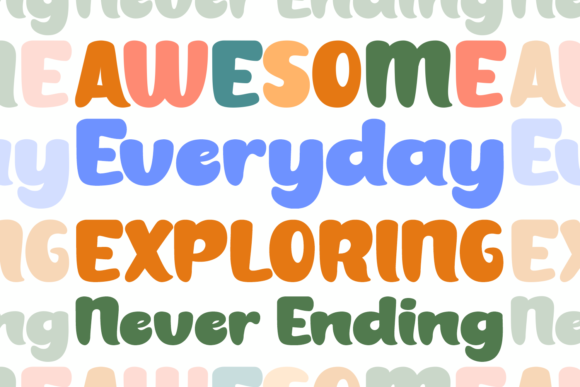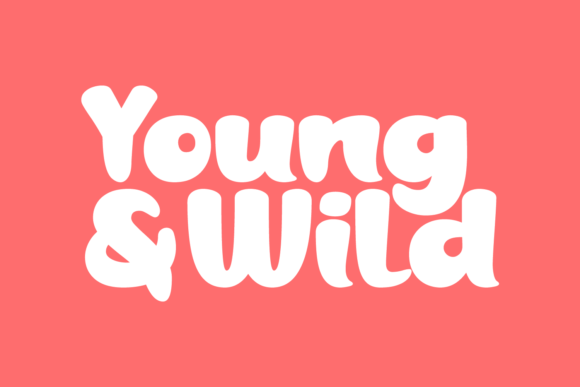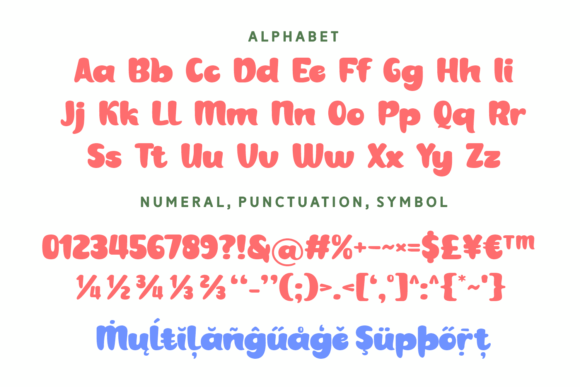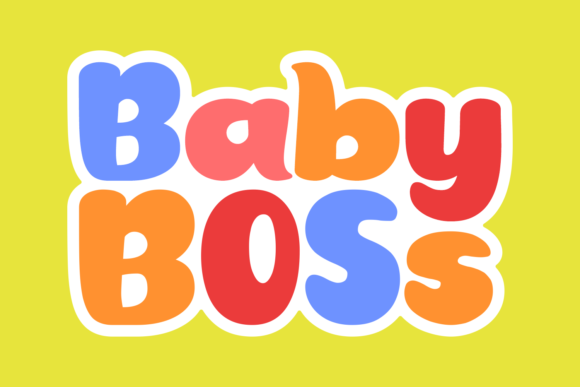
Baby Boss Font: Elevate Your Designs with a Bold and Bubbly Display Font
Are you looking for a font that can add a touch of playfulness and fun to your designs? Look no further than the Baby Boss Font! This bold and bubbly display font is perfect for designers and crafters who want to take their projects to the next level. In this article, we’ll explore the features and benefits of the Baby Boss Font, and how it can be used to create stunning designs that will leave a lasting impression.
What is Baby Boss Font?
Baby Boss Font is a modern display font that features lively characters that are sure to capture attention. The font is designed to be bold and bubbly, making it perfect for projects that require a playful touch. Whether you’re creating a logo, a poster, or a social media graphic, the Baby Boss Font is sure to add a fun and energetic vibe to your design.
Key Features of Baby Boss Font
- Bold and Bubbly: The Baby Boss Font features bold and bubbly characters that are sure to stand out in any design.
- Easy to Read: Despite its bold and playful design, the Baby Boss Font is easy to read, making it perfect for use in a variety of projects.
- Versatile: The font can be used in a variety of projects, from logos and posters to social media graphics and more.
Benefits of Using Baby Boss Font
There are many benefits to using the Baby Boss Font in your designs. Here are just a few:
- Adds a Playful Touch: The Baby Boss Font adds a playful touch to any design, making it perfect for projects that require a fun and energetic vibe.
- Stand Out from the Crowd: The bold and bubbly design of the Baby Boss Font ensures that your design will stand out from the crowd.
- Compatible with a Variety of Projects: The Baby Boss Font can be used in a variety of projects, making it a versatile addition to your font library.
Project Ideas Using Baby Boss Font
The Baby Boss Font is versatile and can be used in a variety of projects. Here are a few ideas to get you started:
- Party Invitations: Use the Baby Boss Font to create fun and playful party invitations.
- Social Media Graphics: Use the font to create eye-catching social media graphics that will stand out in crowded feeds.
- Logos: Use the Baby Boss Font to create a bold and playful logo for your business or brand.
- Cricut and Silhouette Projects: Use the font to create custom signs, banners, and other projects with your cutting machine.
The Baby Boss Font is a bold and bubbly display font that is sure to elevate your designs to the next level. With its lively characters and compatibility with cutting machines such as Cricut and Silhouette, this font is perfect for designers and crafters who want to add a playful touch to their projects. Whether you’re creating a logo, poster, or social media graphic, the Baby Boss Font is a versatile and fun font that is sure to make your designs stand out.